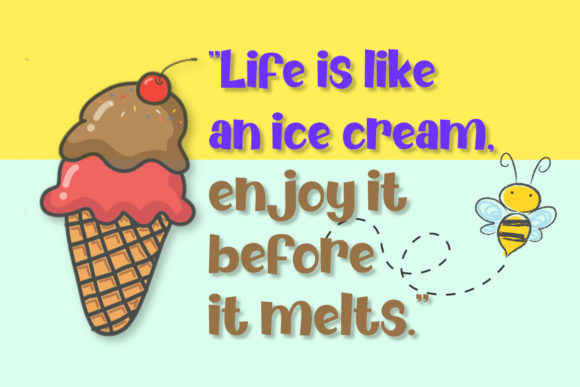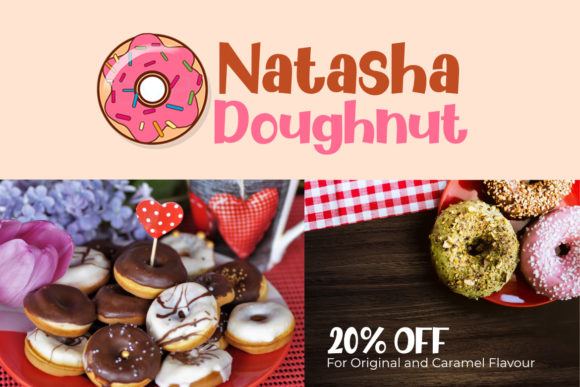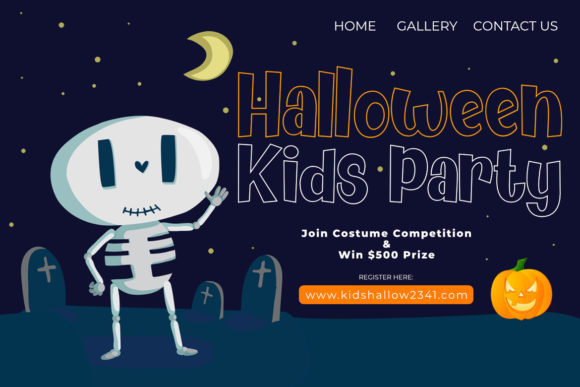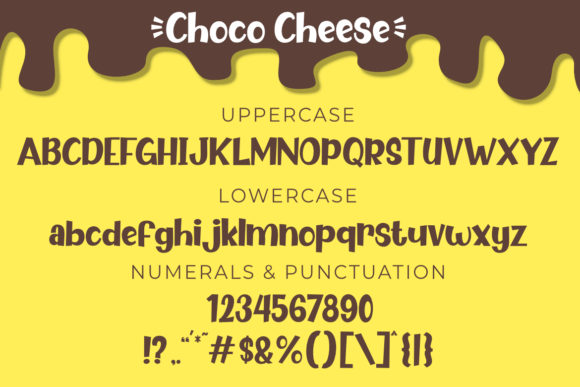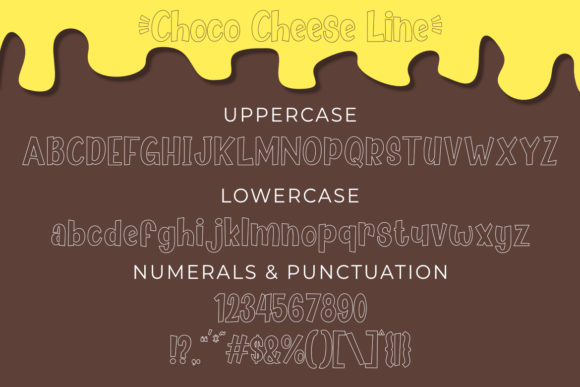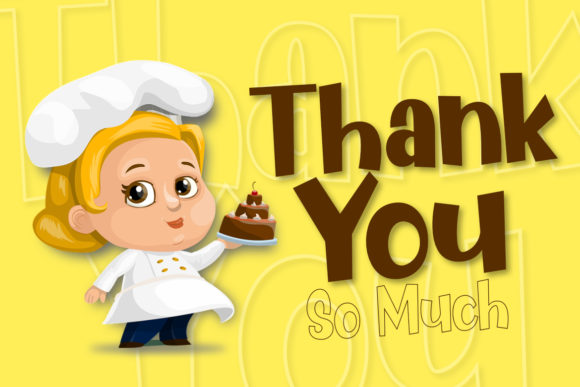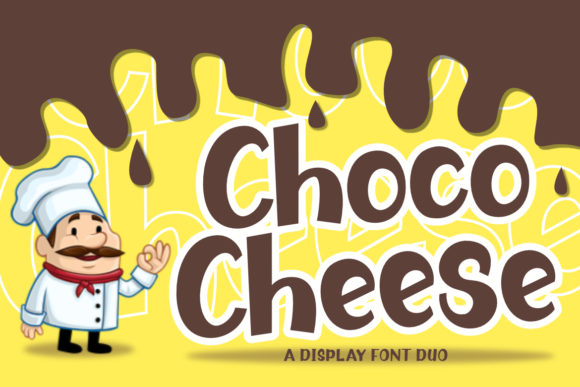
Introducing Choco Cheese Font: The Ultimate Display Font for Creative Designs
Are you tired of using the same old fonts in your designs? Do you want to add a fresh and contemporary touch to your creative projects? Look no further than Choco Cheese Font! This bouncy and quirky display font is perfect for designers and crafters who want to make their designs stand out from the crowd.
What is Choco Cheese Font?
Choco Cheese Font is a unique and eye-catching display font that is sure to add a touch of whimsy to your designs. With its bouncy and quirky style, this font is perfect for creating fun and playful designs that will capture the attention of your audience. Whether you’re designing a logo, a brochure, or a social media post, Choco Cheese Font is the perfect choice.
Key Features of Choco Cheese Font
- Unique and Eye-Catching: Choco Cheese Font is a one-of-a-kind display font that will add a fresh and contemporary touch to your designs.
- Bouncy and Quirky: The font’s bouncy and quirky style makes it perfect for creating fun and playful designs.
- Highly Versatile: Choco Cheese Font can be used for a wide range of design projects, from logos and brochures to social media posts and more.
- Easy to Read: Despite its quirky style, Choco Cheese Font is highly legible and easy to read, making it perfect for use in a variety of design applications.
How to Use Choco Cheese Font in Your Designs
- Logos: Create a unique and eye-catching logo for your business or brand with Choco Cheese Font.
- Brochures: Add a touch of whimsy to your brochures with Choco Cheese Font.
- Social Media Posts: Make your social media posts stand out with Choco Cheese Font.
- Signs: Create eye-catching signs for your business or event with Choco Cheese Font.
Tips for Getting the Most Out of Choco Cheese Font
Here are a few tips for getting the most out of Choco Cheese Font:
- Use it sparingly: Because Choco Cheese Font is a display font, it’s best to use it sparingly. Use it for headings or titles, and a more traditional font for body text.
- Experiment with colors: Choco Cheese Font looks great in a variety of colors. Experiment with different colors to find the one that works best for your design.
- Pair it with other fonts: Choco Cheese Font pairs well with a variety of other fonts. Experiment with different font combinations to find the one that works best for your design.
Choco Cheese Font is a unique and eye-catching display font that is sure to add a fresh and contemporary touch to your designs. With its bouncy and quirky style, this font is perfect for creating fun and playful designs that will capture the attention of your audience. Whether you’re a designer or a crafter, Choco Cheese Font is a great addition to your font collection.
Choco Cheese Font: The Perfect Font for Designers and Crafters
Choco Cheese Font is the perfect font for designers and crafters who want to add a touch of whimsy to their designs. With its unique and eye-catching style, this font is sure to make your designs stand out from the crowd. So why wait? Download Choco Cheese Font today and start creating fun and playful designs that will capture the attention of your audience!